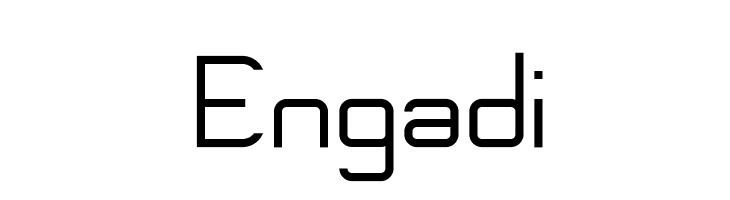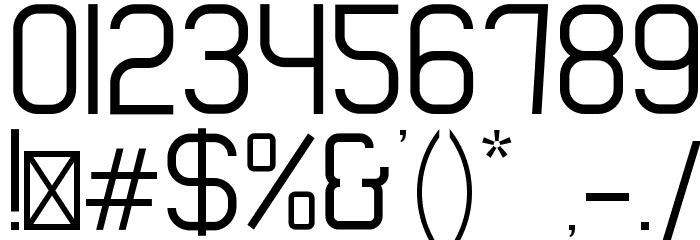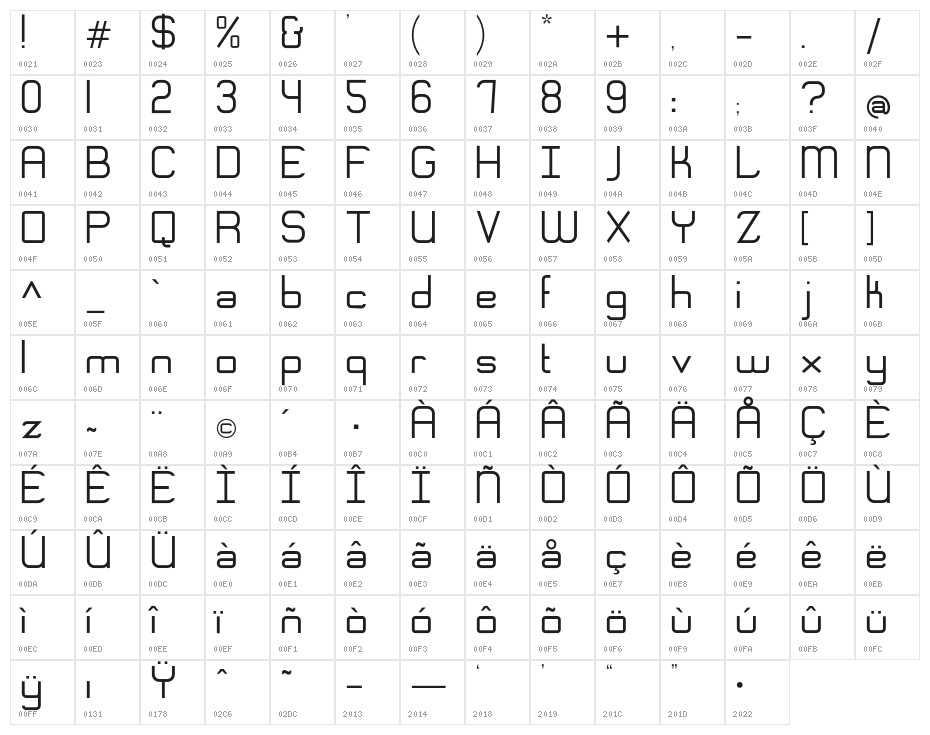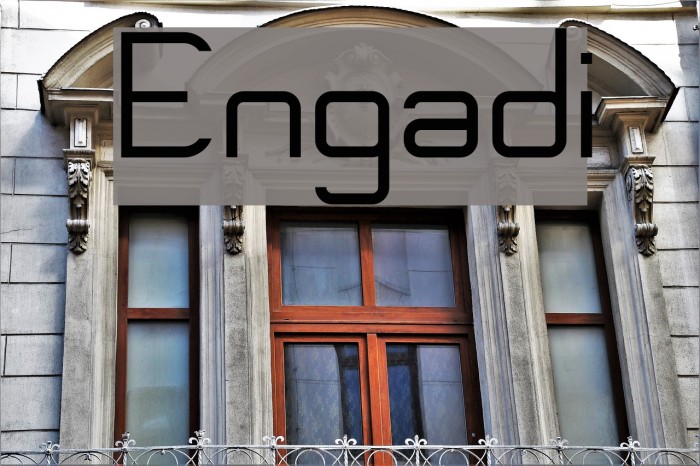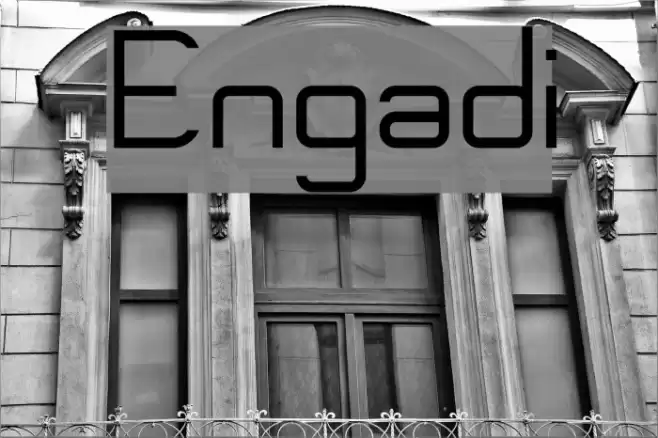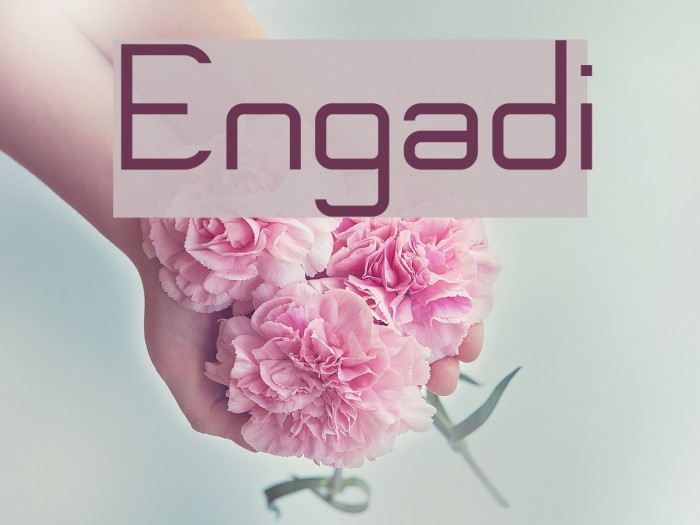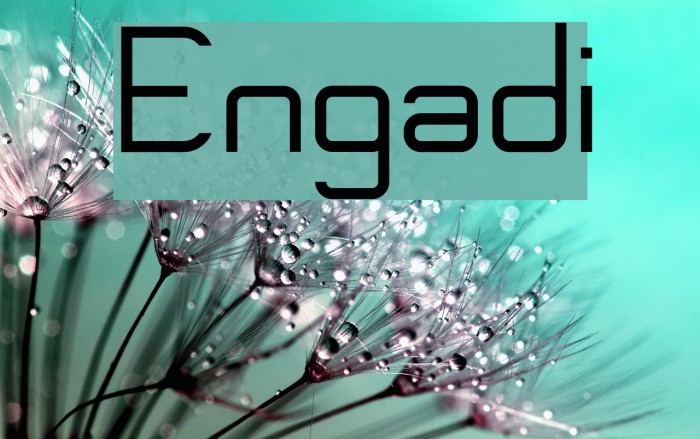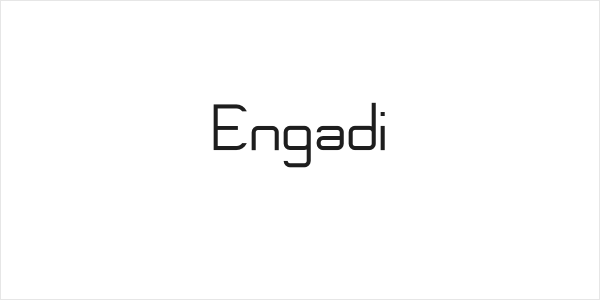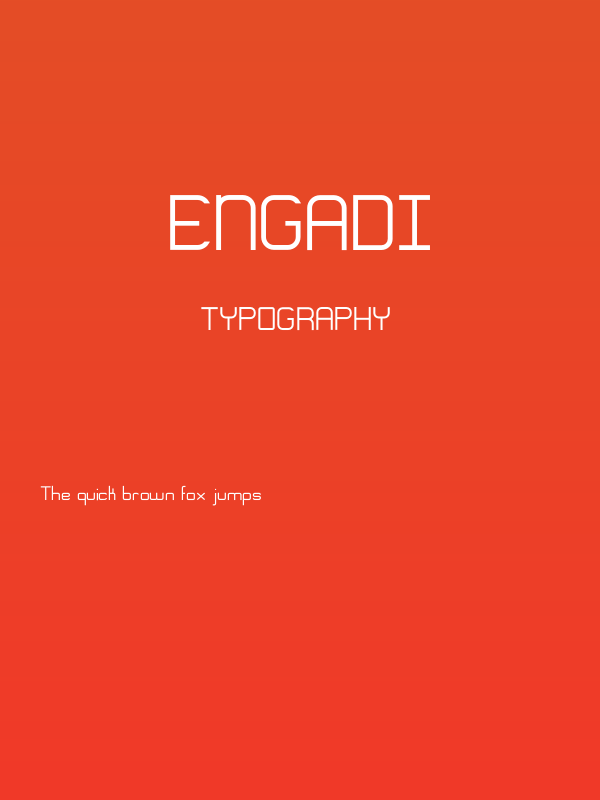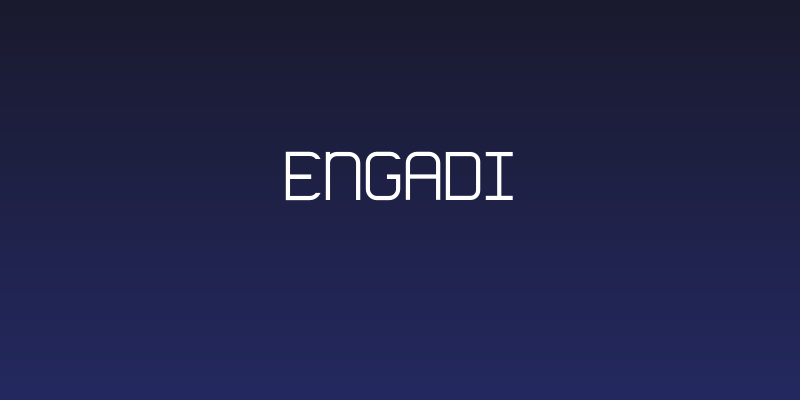
Engadi Font
Engadi Description
This font features a modern and sleek design with clean lines and a geometric structure. The uppercase letters are uniform in height, creating a harmonious and balanced appearance. The lowercase letters maintain a consistent style, with rounded edges that add a touch of softness to the overall look. The numerals are clear and easy to read, following the same geometric principles as the letters. Special characters are well-integrated, maintaining the font's cohesive aesthetic. This font's design is both functional and stylish, making it suitable for a variety of applications.
| Use Case | Headlines, Logos, Web design |
| Proposed Projects | Ideal for tech branding, modern web design, and minimalist posters. |